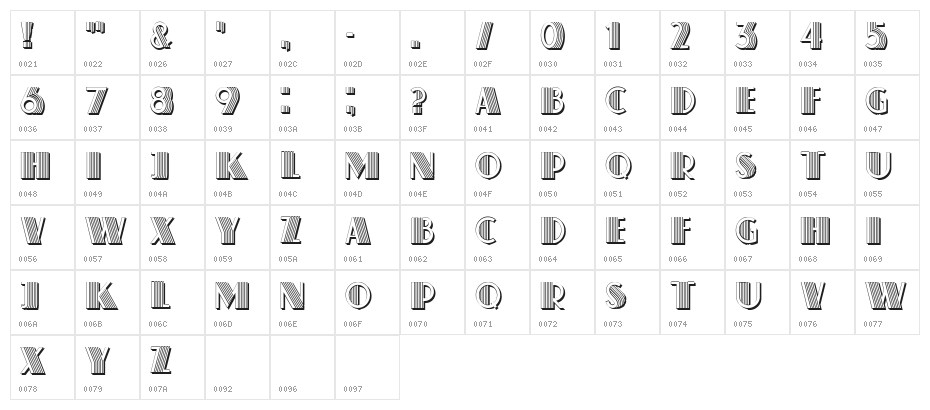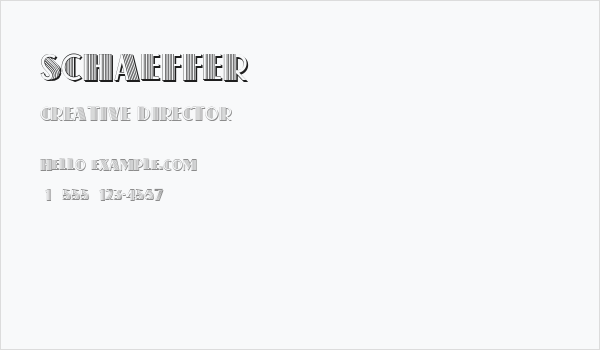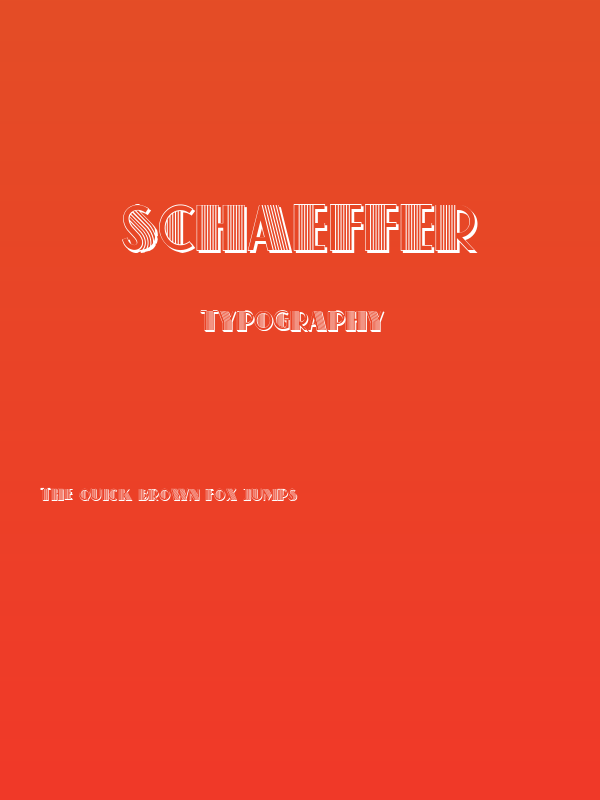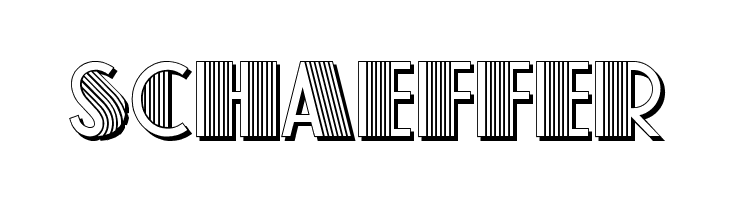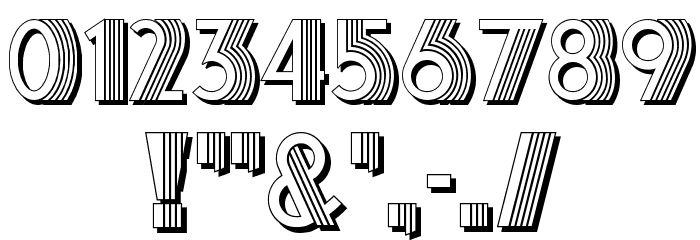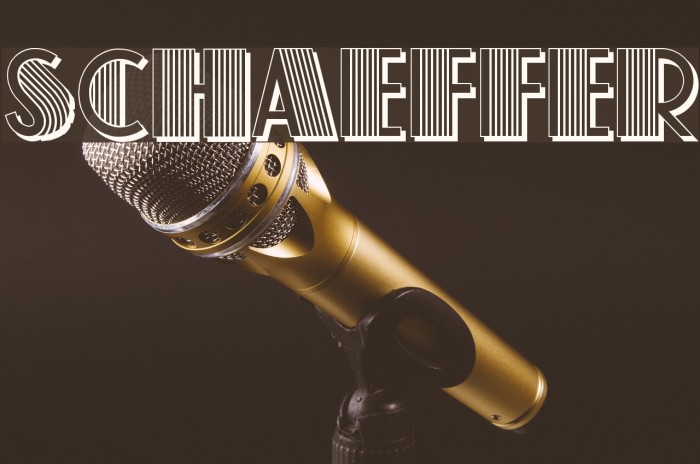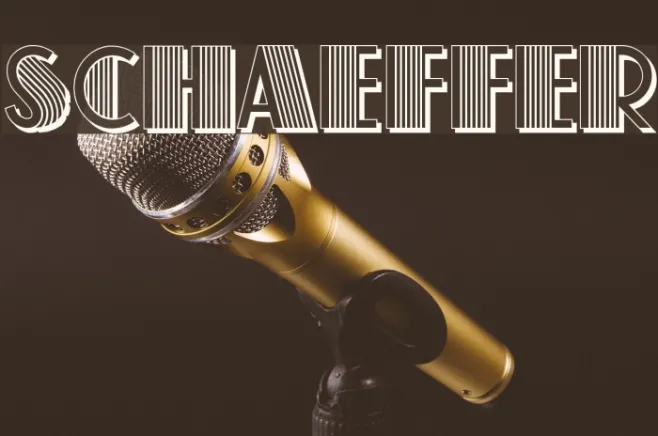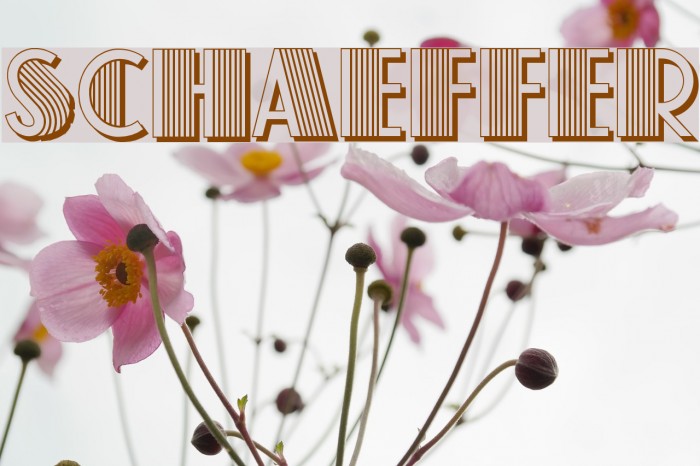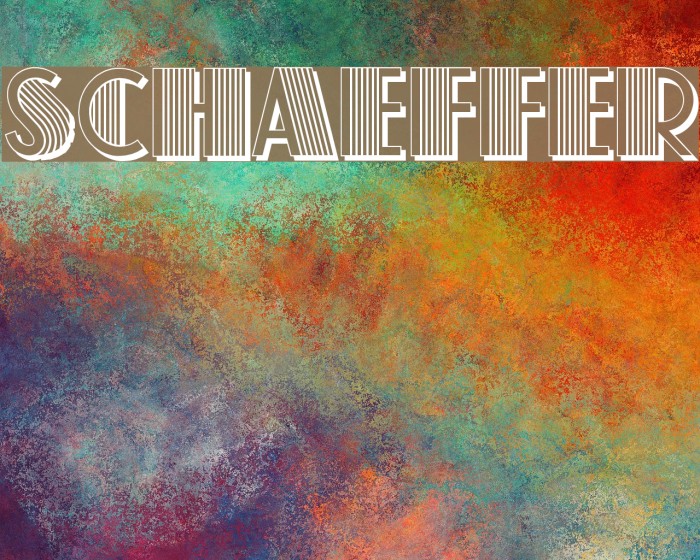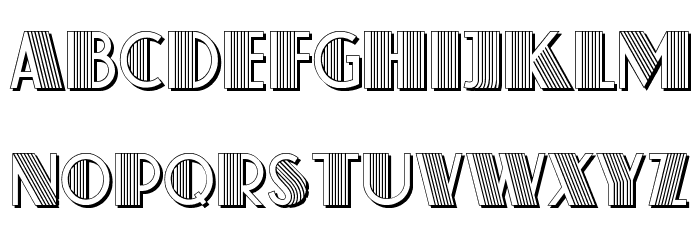
Schaeffer Font
Schaeffer Description
This font features a bold and striking design with a unique striped pattern running through each character. The uppercase letters are particularly eye-catching, with a strong geometric form that is both modern and playful. The numerals and special characters maintain this distinctive style, ensuring consistency across all glyphs. The font's design is reminiscent of art deco influences, with a contemporary twist that makes it suitable for a variety of creative applications. Its boldness and decorative elements make it ideal for projects that require a standout typeface.
| Proposed Projects | Ideal for posters, branding, packaging, and any project that requires a bold, decorative typeface. |